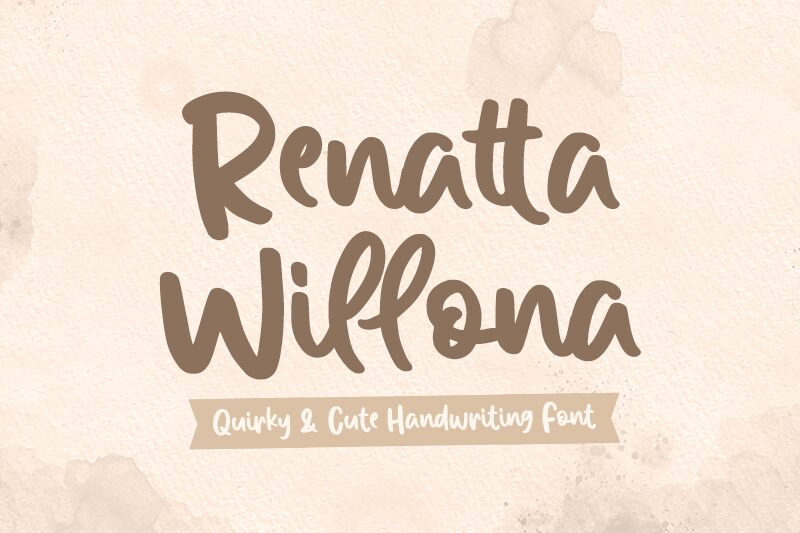
Renatta Willona font, designed by M Arif Dwi Prasetyo & Eko Nurcahyo, is a bold and quirky handwritten font. It's perfect for adding a playful touch to your projects, be it posters, quotes, logos or invitations.
Renatta Willona